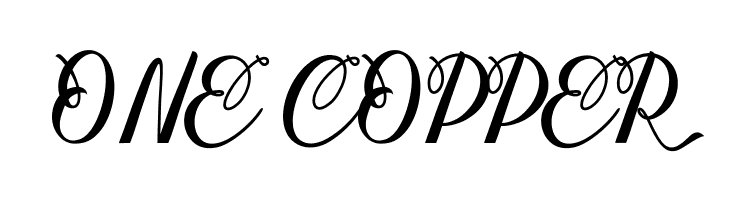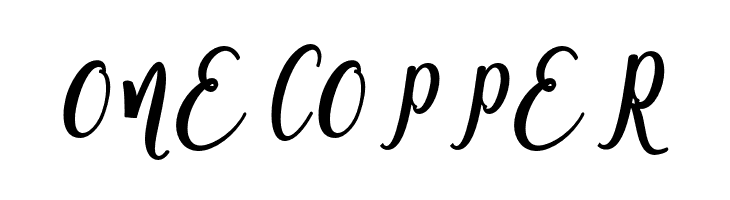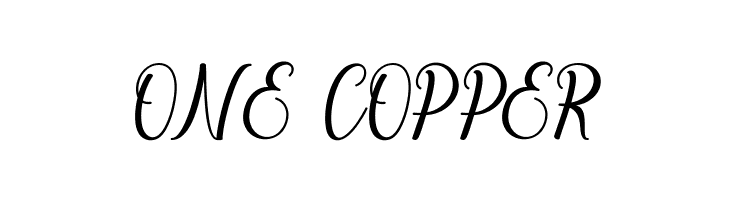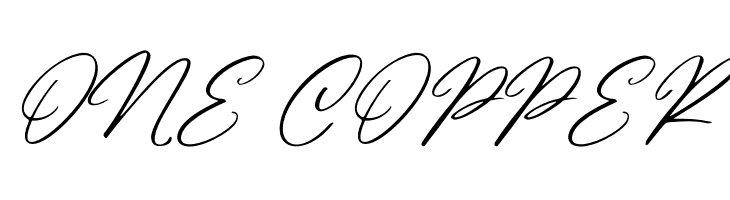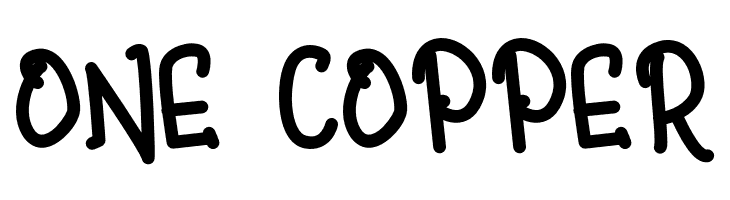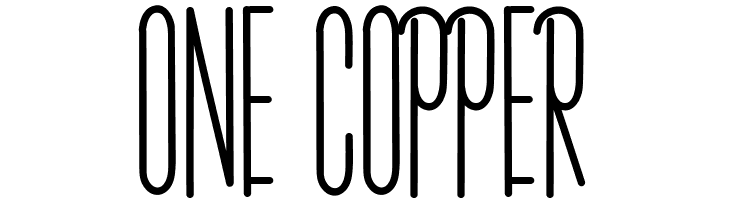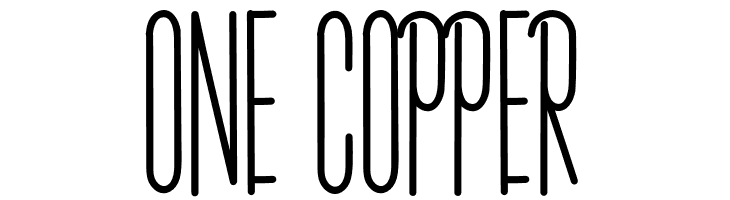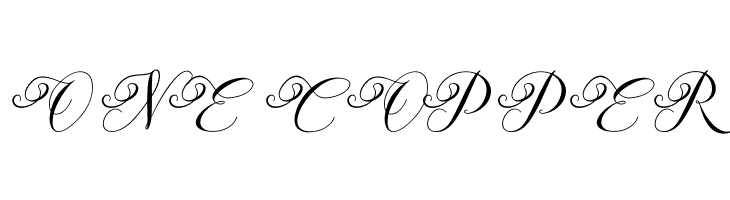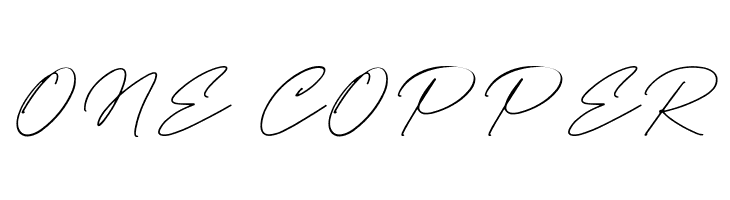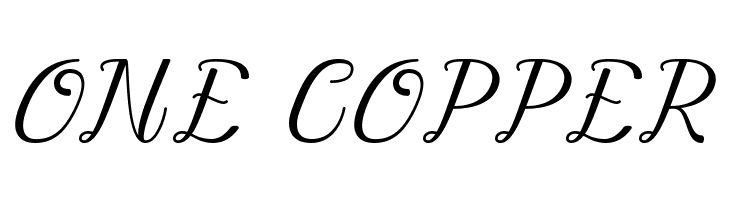
A modern, rounded font with a sleek, condensed design.
A modern, decorative font with a city skyline motif integrated into tall, narrow letterforms.
A dynamic font with elongated vertical lines and a dripping effect.
A modern, rounded font with elongated, narrow letterforms and smooth curves.
A modern, skyline-inspired font with tall, narrow characters and high contrast.
A graceful, flowing script font with a handwritten style.
A bold, expressive handwritten script font with a modern calligraphic style.
A graceful and elegant script font with flowing cursive strokes.
A traditional script font with elegant, flowing curves and dynamic strokes.
A bold, expressive script font with dynamic strokes and a traditional yet modern appeal.
A bold, expressive script font with elegant, flowing cursive letters.
A lively, expressive handwritten font with fluid, interconnected strokes.
A modern serif font with sharp angles and geometric shapes.
A lively, flowing script font with elegant cursive letterforms and dynamic contrast.
A playful, cursive script font with elegant loops and swirls.
An elegant script font with fluid, cursive strokes and a classic charm.
A stylish and elegant handwritten script font with fluid, cursive letterforms.
A rebellious, hand-drawn font with jagged, dynamic strokes.
A bold, graffiti-inspired font with sharp, angular strokes and a dynamic, hand-drawn style.
A chaotic, abstract font with fragmented and distorted letterforms.
A chaotic and abstract font with bold, fragmented letterforms.
A playful, hand-drawn font with irregular, dynamic letterforms.
A bold, chaotic, and abstract decorative font with unique, fragmented letterforms.
A decorative and artistic font with abstract, square-enclosed characters.
A bold, distressed font with a grunge, rebellious style.
A bold, brushstroke font with a rebellious and chaotic style.
A bold, jagged font with a rebellious, energetic vibe.
A rough, hand-drawn font with an edgy, rebellious style.
A bold, expressive script font with high contrast and fluid letterforms.
A vintage, typewriter-inspired font with a distressed, nostalgic look.
A dynamic and expressive handwritten script font.
A playful, handwritten script font with interconnected characters.
A cursive, handwritten-style font with a flowing and elegant appearance.
A playful, casual handwritten font with fluid strokes and a friendly appearance.